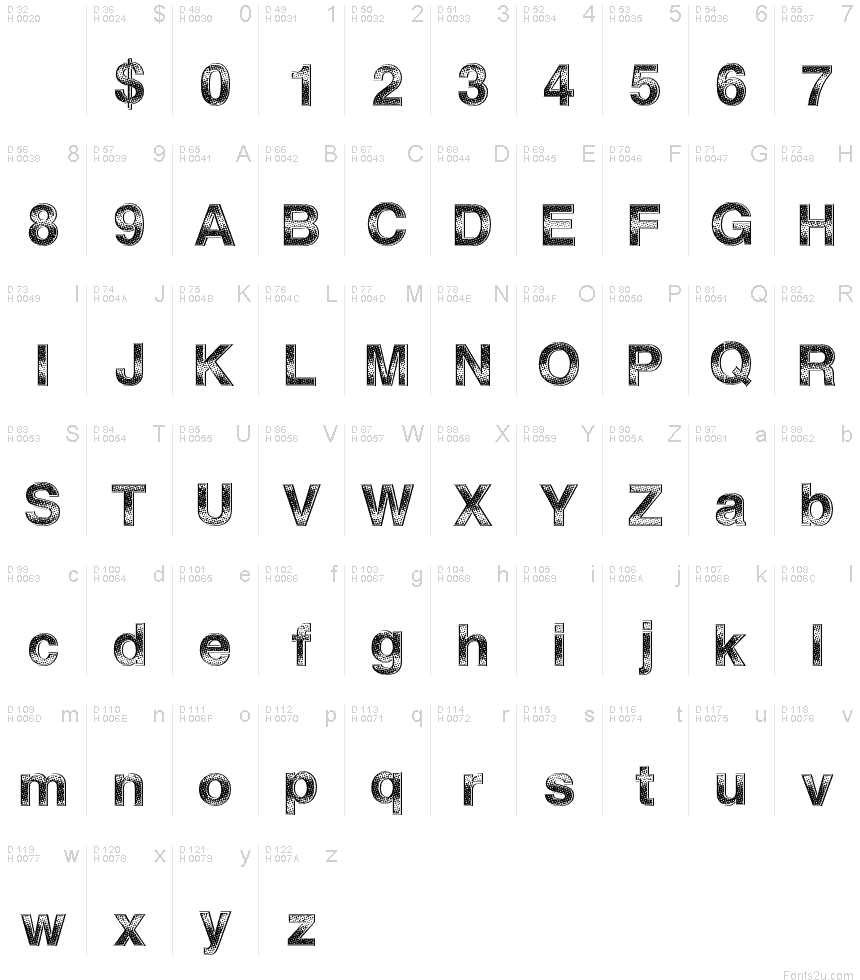
Title Solution by Xerographer Fonts is a free decorative display font with broad, rounded lettering and a dense halftone fill. Dots shift in scale and concentration across the strokes, creating a lively printed texture.
That screen-print effect suits music posters and comic publishing, yet it also feels at home on retro snack packaging. Merchandise graphics are another strong fit, since all these uses benefit from lettering that doubles as a patterned image.